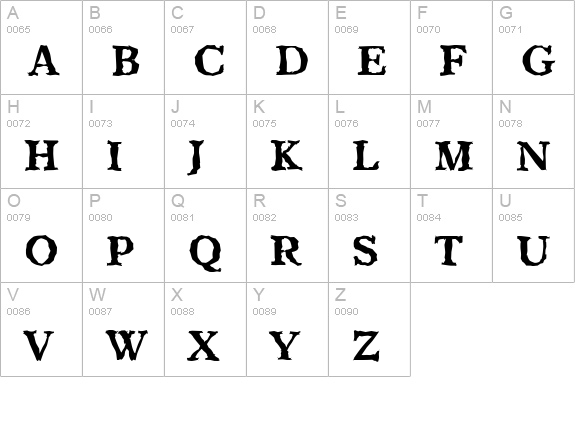
GranadaRandom-Xbold-Regular Font Details
GranadaRandom-Xbold-Regular is the standard, neutral variant in the GranadaRandom typeface family \xE2\x80\x94 well suited to general body text, paragraphs, and standard typographic work.
GranadaRandom-Xbold-Regular font is a bold and eye-catching typeface that exudes a sense of modernity and sophistication. With its unique random design, this font is perfect for making a statement in any creative project. Its thick strokes and sharp edges give it a strong presence, making it ideal for headlines, titles, and other prominent text. What sets GranadaRandom-Xbold-Regular font apart is its versatility - it can be used for a wide range of design purposes, from branding and advertising to packaging and editorial projects. Its bold appearance ensures that your message will be seen and remembered. The best part is that GranadaRandom-Xbold-Regular font is available for free download at FontsMarket.com. This means you can easily access this stylish and impactful typeface to elevate your designs without any cost. Don't miss out on the opportunity to add GranadaRandom-Xbold-Regular font to your font library and unleash your creativity!